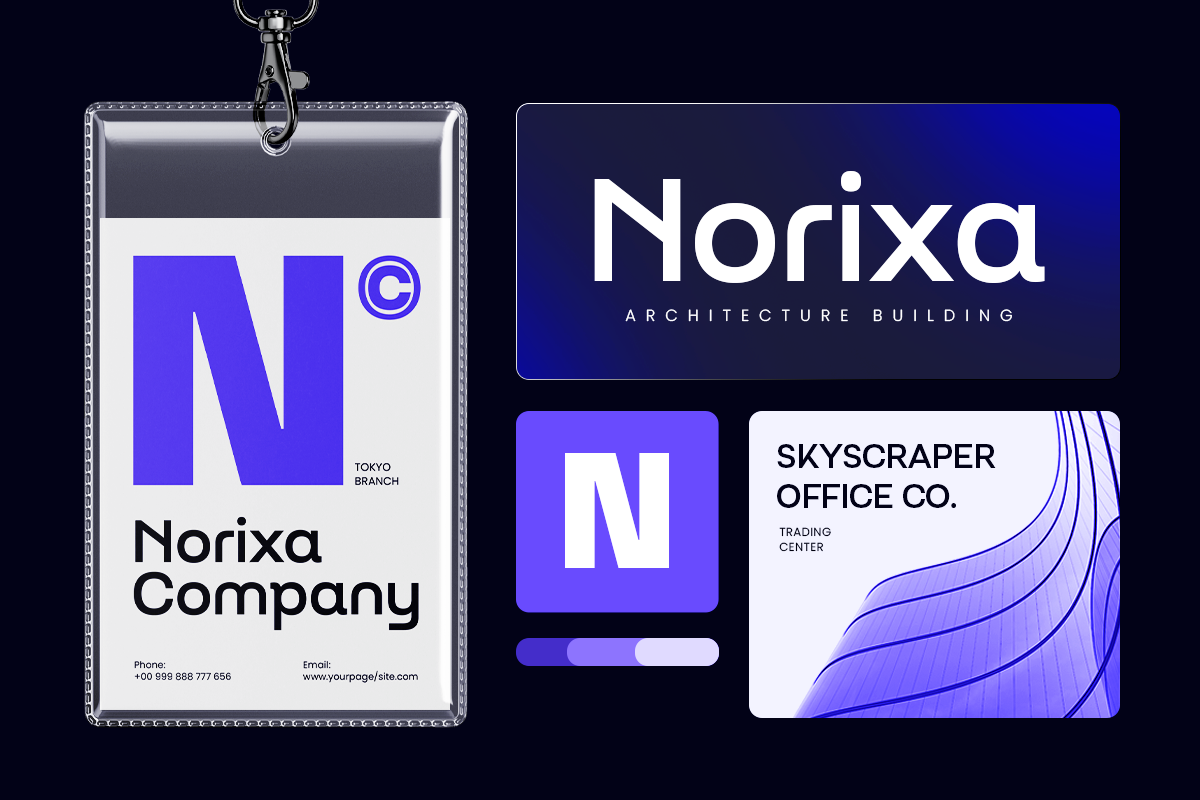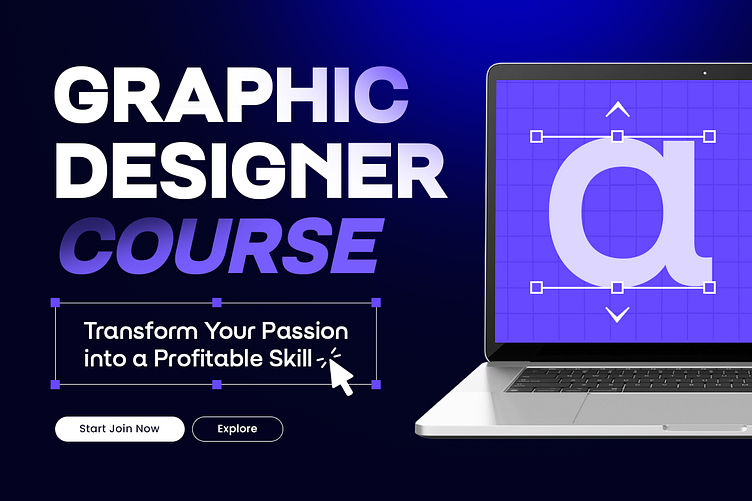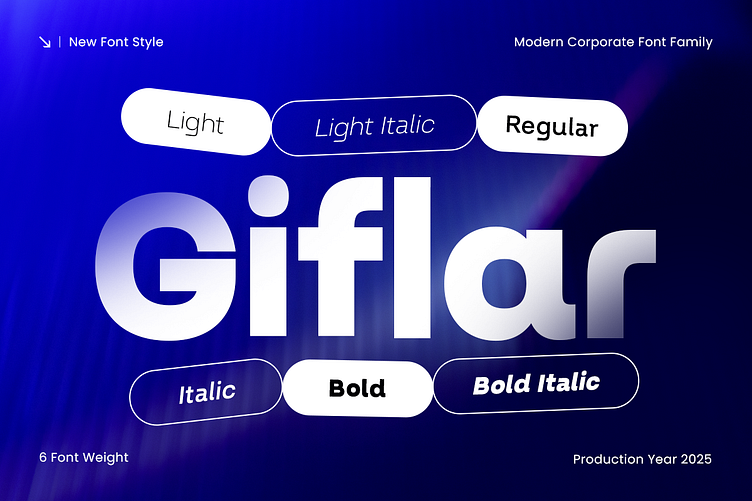
Giflar – Modern Corporate Font for Smart, Professional Brands ✨
Say hello to Giflar, a modern and professional type family built with purpose and clarity. Designed to meet the demands of today’s tech-driven and corporate design world, Giflar – Modern Corporate Font Family brings a clean, confident tone to your brand communication.
We designed Giflar to be the go-to font for businesses that want to appear both innovative and trustworthy. With sharp legibility, minimalistic elegance, and a structured rhythm, Giflar works beautifully in everything from modern corporate identities to tech startups, product branding, software UI, and digital platforms.
Whether used in bold headlines or subtle body text, Giflar brings a sleek, modern attitude to any application—without losing that essential corporate polish.
✔ Built for clarity, confidence & professionalism
✔ Ideal for logos, web, corporate decks, dashboards, & branding
✔ Clean, modern structure with versatile weights for flexible use